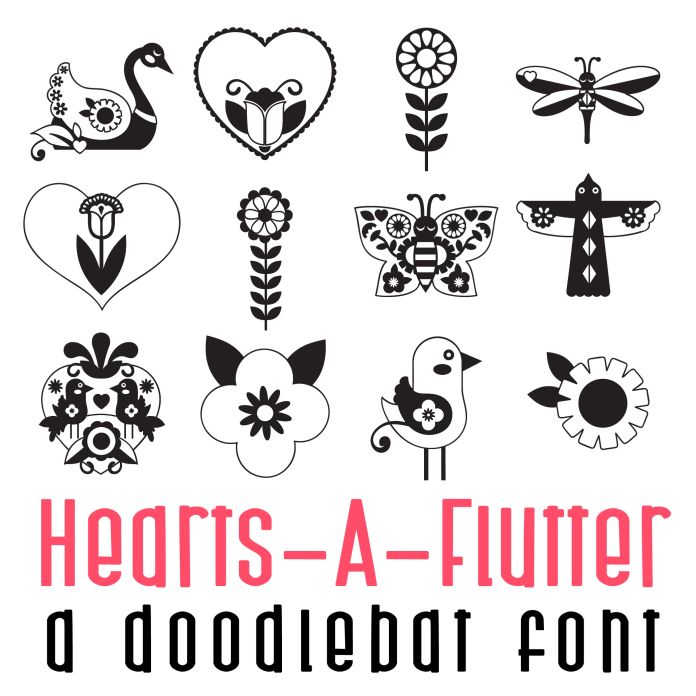
This doodlebat font features 26 florally hearts and love designs! Perfect for classrooms, teachers, gifts, decor, scrap book pages, planner stickers and more!